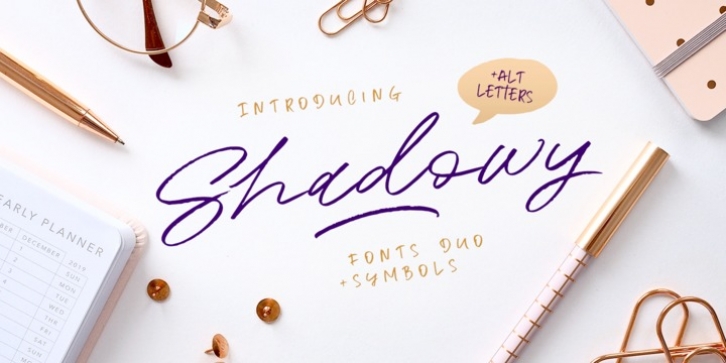
Shadowy Script is modern calligraphy font. It is perfect for branding, cards, gorgeous logos, posters, wedding invitations, blog posts, social media, and more!